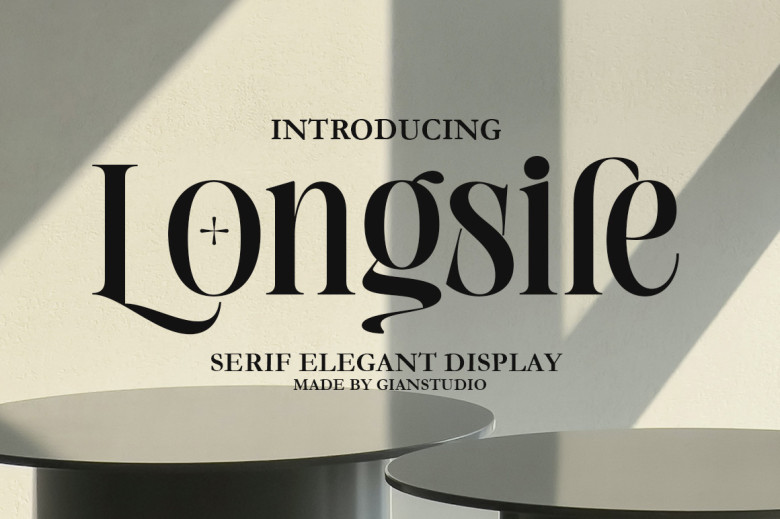
Longsile Font
We are delighted to introduce our brand new font! Introducing Longsile Display Serif, with a sophisticated and modern design – making this font appear natural, elegant and sophisticated all at the same time. Longsile’s design capabilities make it the ideal solution for logos, invitations, branding photography, advertising watermarks and social media posts.
Packaging products, designs for product labels and designs of wedding stationary for special events can all create a theme to enhance an overall experience for consumers. Longsile was developed using OpenType features, and includes stylistics for beginning and ending letters as well as alternative characters for all lowercase punctuation, letters and numbers as well as ligatures, alternative characters and can even be used with other languages.
Longsile Serif Font